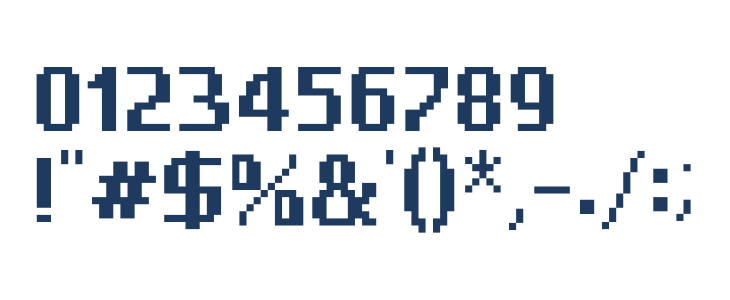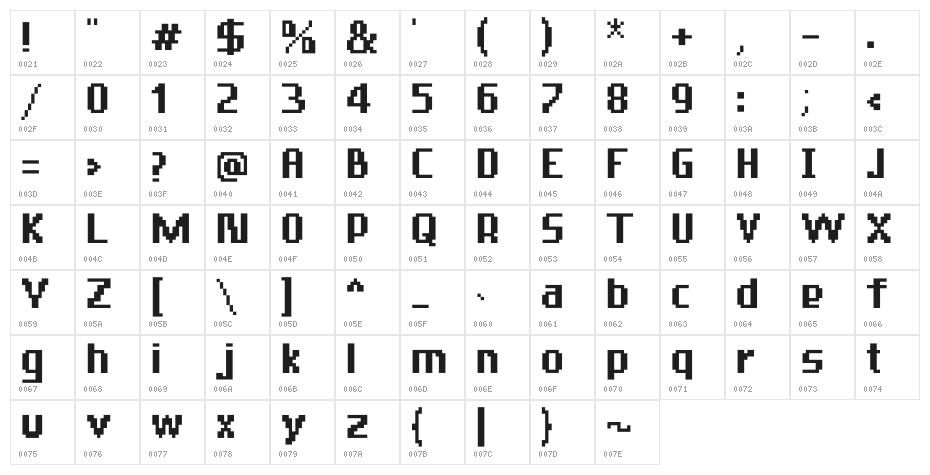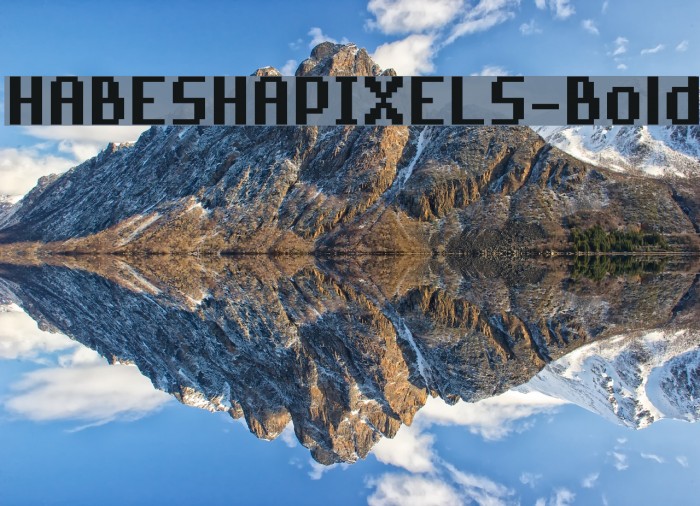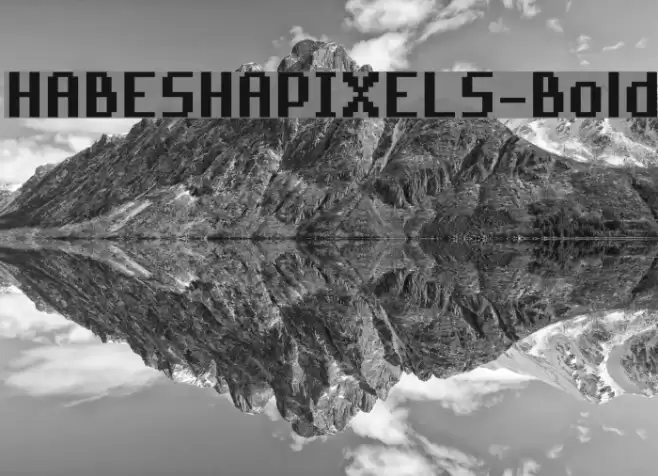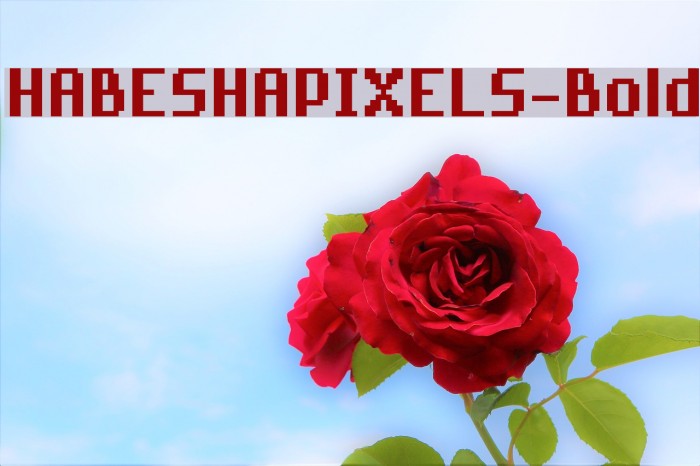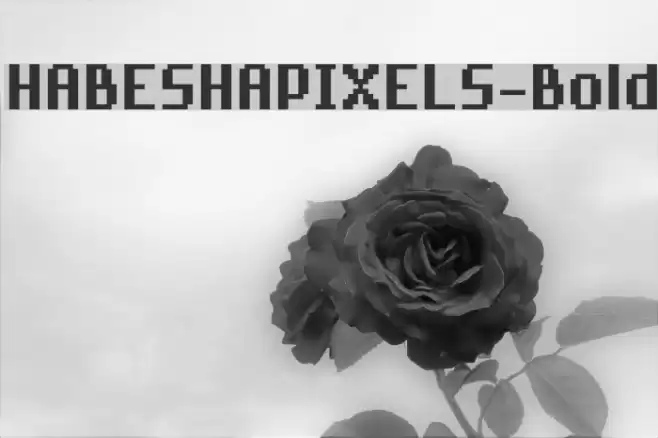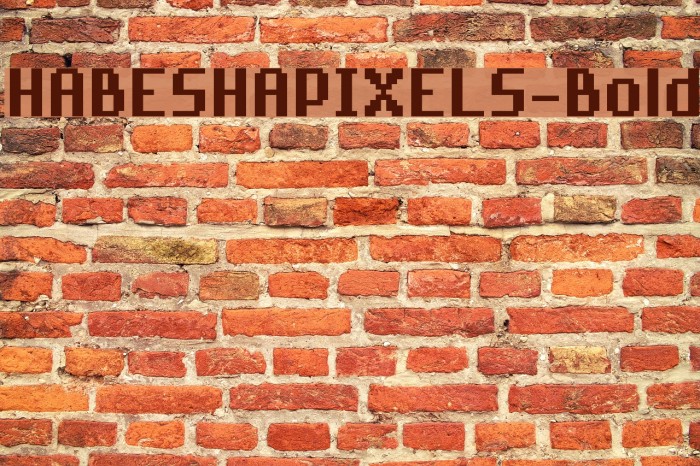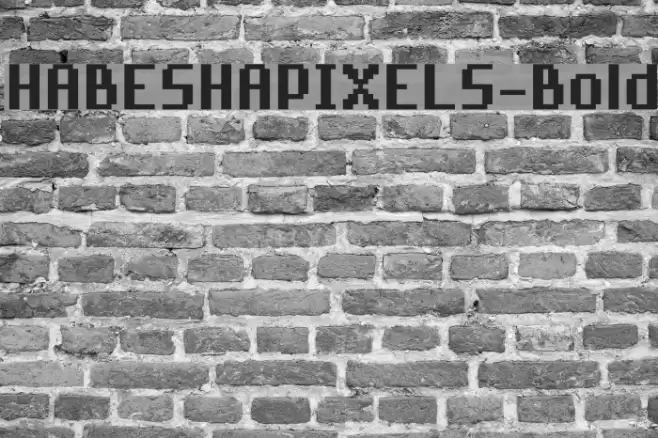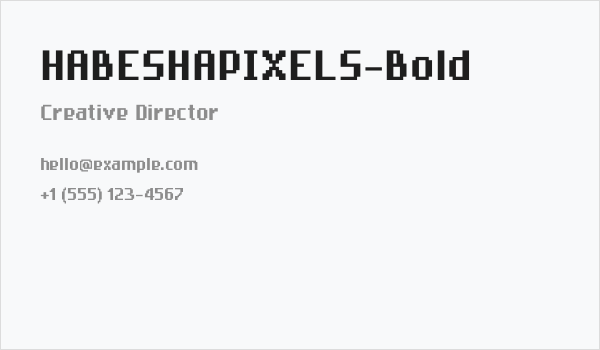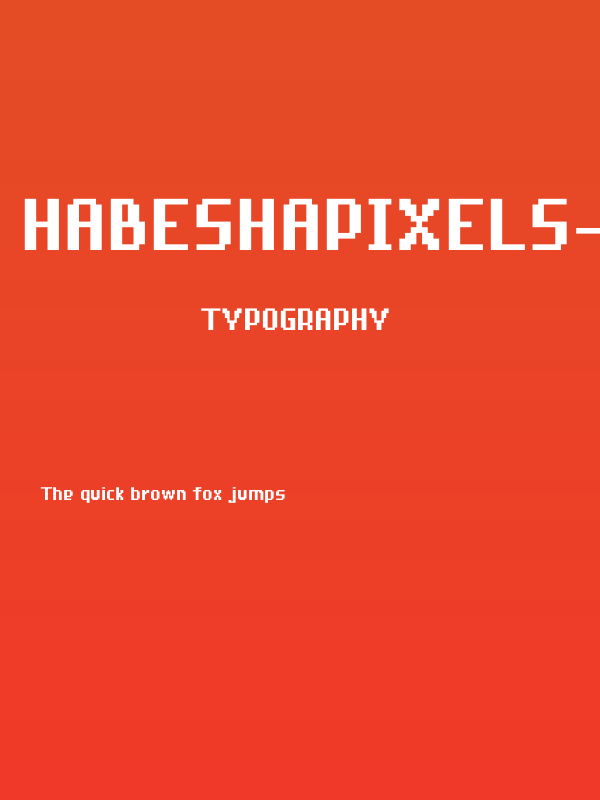
HABESHAPIXELS-Bold Font
HABESHAPIXELS-Bold Description
This font features a bold, pixelated style reminiscent of early digital displays and retro video games. The characters are constructed with a blocky, grid-like appearance, giving it a distinctly digital and nostalgic feel. The uppercase and lowercase letters maintain a consistent height, enhancing readability while preserving the pixel art aesthetic. Numbers and special characters are designed with the same pixelated approach, ensuring uniformity across all glyphs. The overall design is straightforward and geometric, making it ideal for projects that aim to evoke a sense of nostalgia or a retro-futuristic vibe.
| Use Case | Headlines, Logos, Digital Art |
| Proposed Projects | Ideal for video game design, retro-themed posters, digital art projects, and any creative work that seeks to capture the essence of early computing or pixel art. |